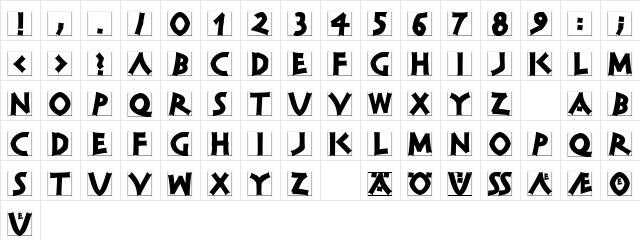
Complete ClassiCapsBricks Black glyph index. Displaying only characters natively supported by ClassiCapsBricks Black font.
ClassiCapsBricks wears its vintage influences proudly, with letterforms that recall mid-century signage, classic packaging, and nostalgia-driven design.